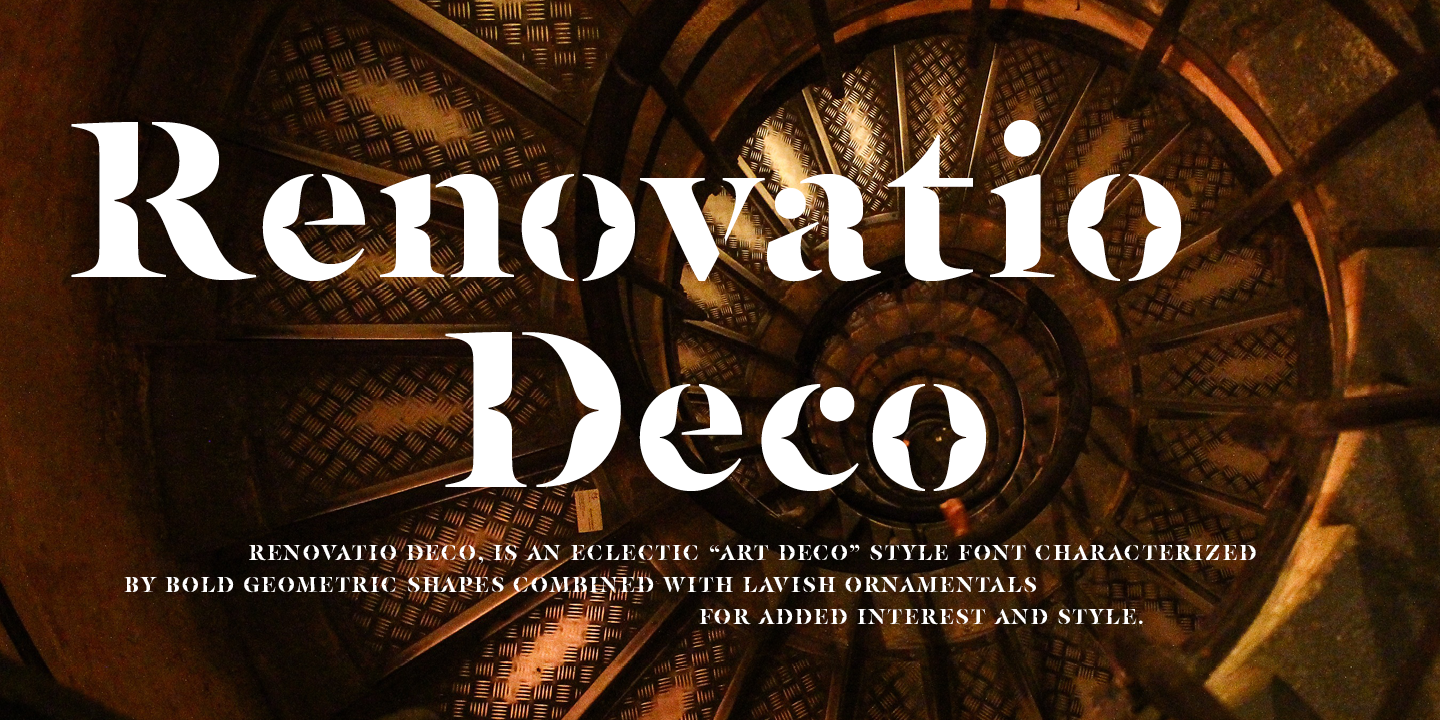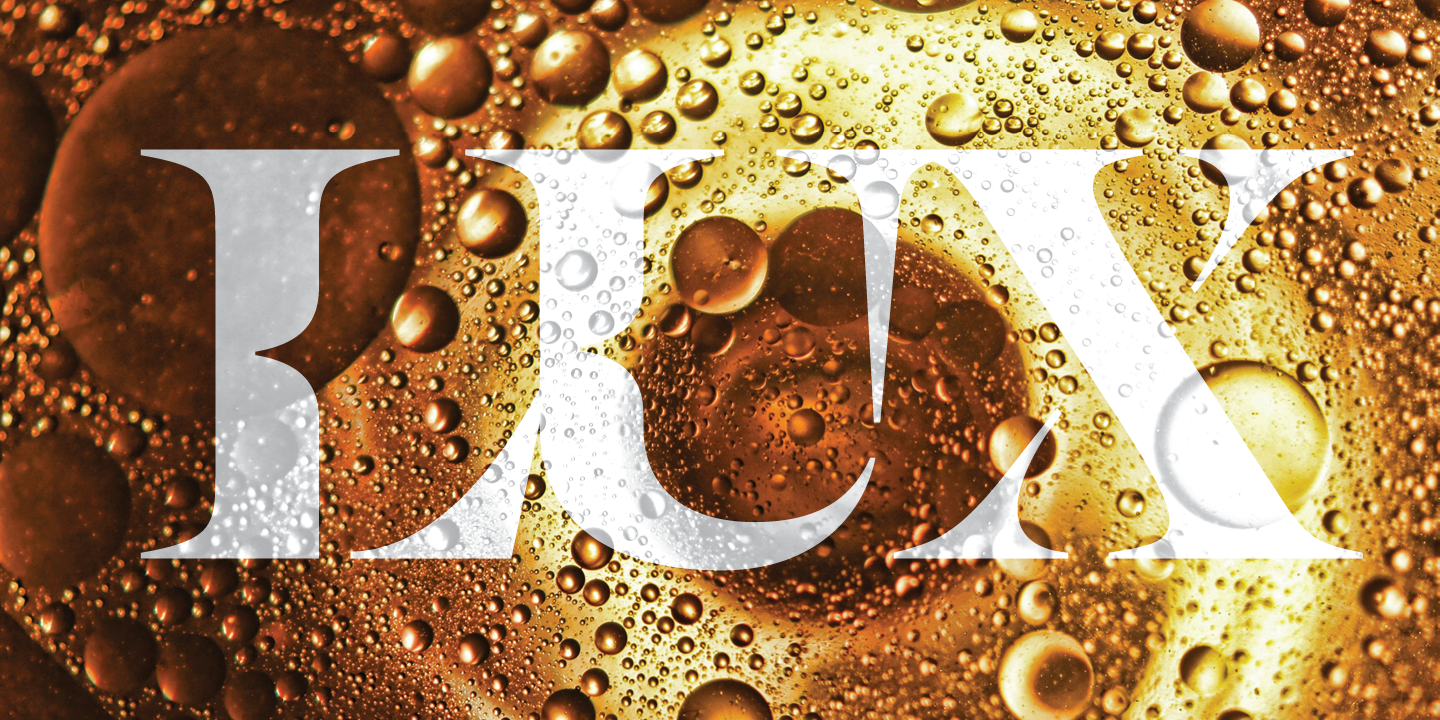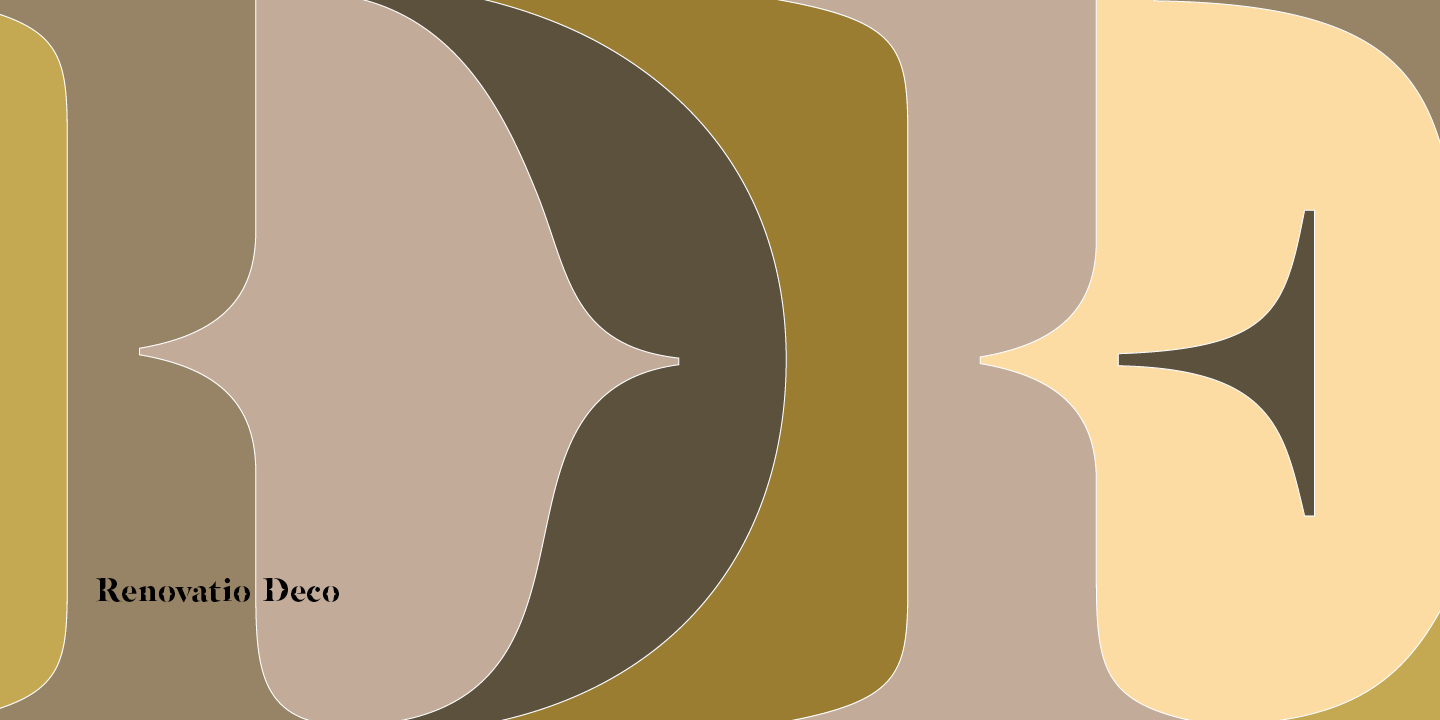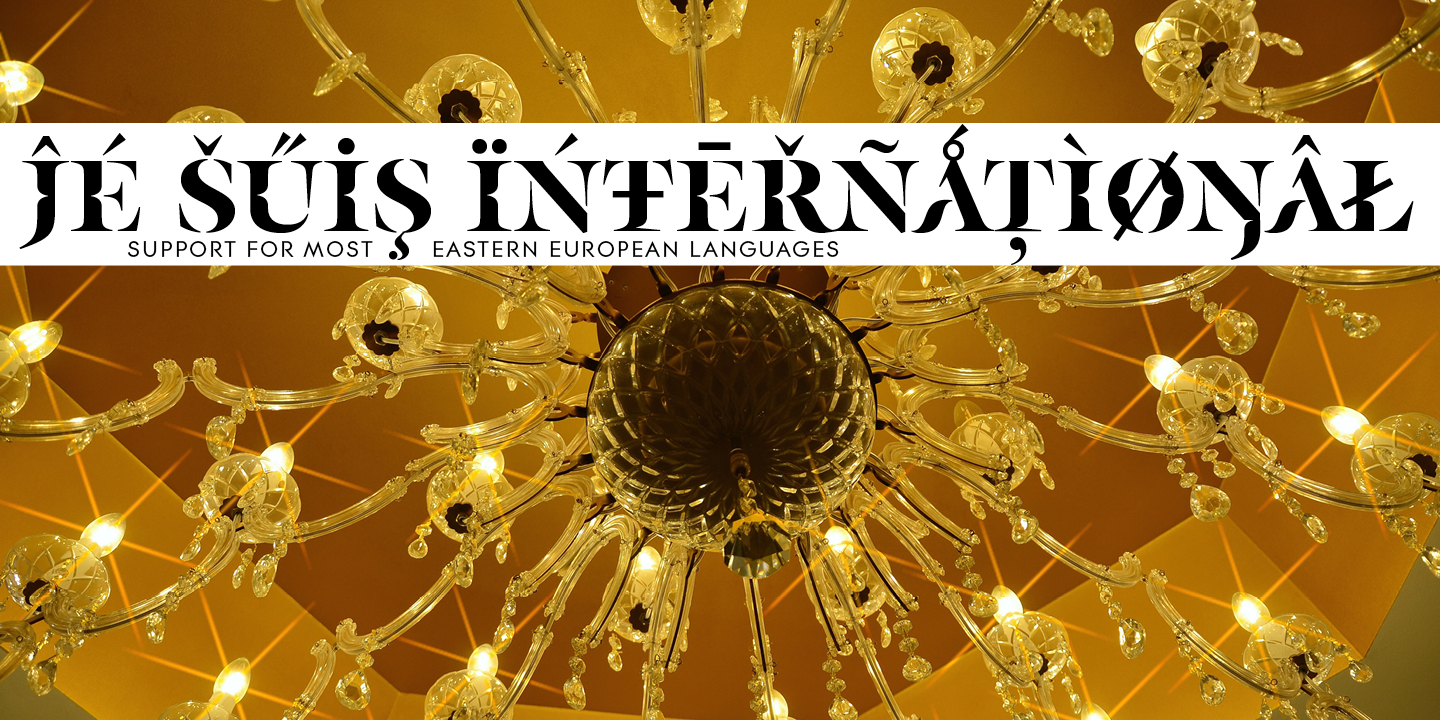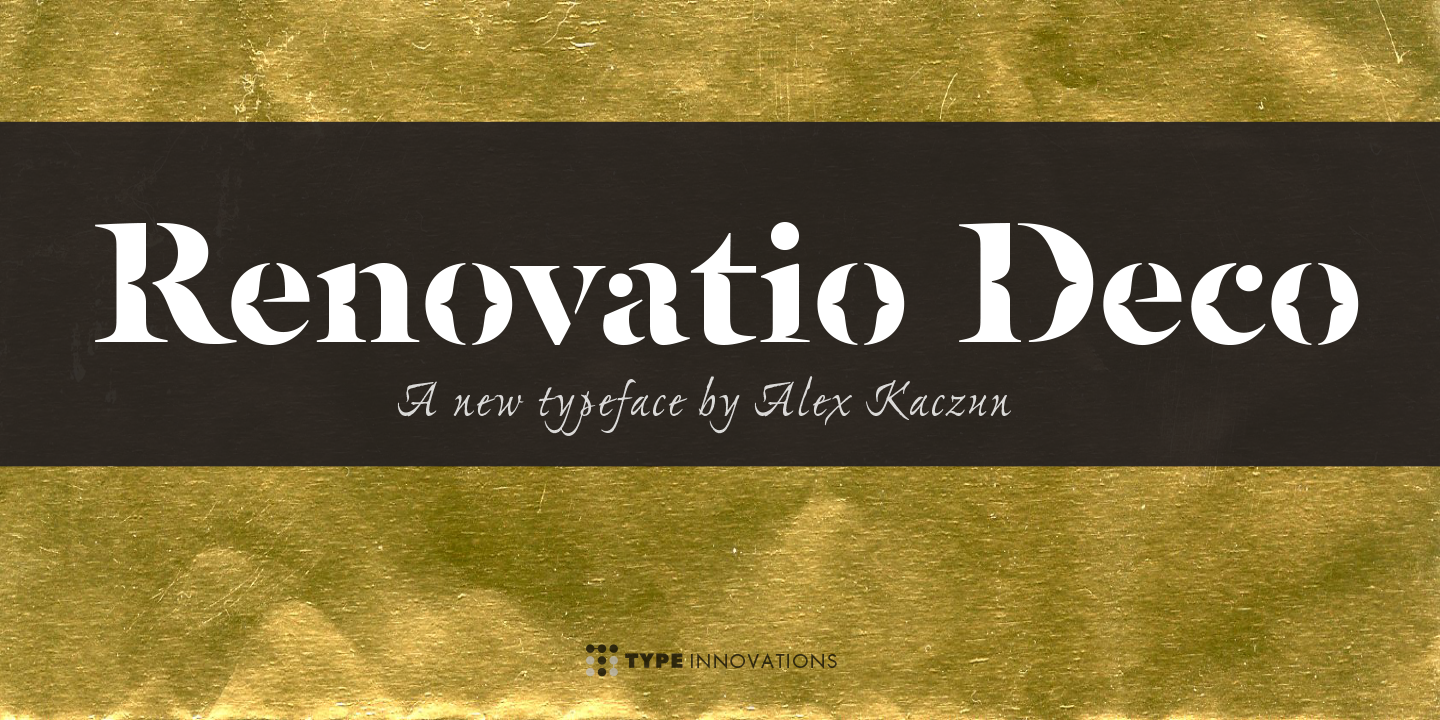
Renovatio Deco
Renovatio is a registered trademark of Type Innovations Inc. This extensive family of fonts will be based on other typefaces currently available in their library. Renovatio means “renewal”—renewing with interest added to principle. Renovatio Deco, is an eclectic “art deco” style based on Alex Kaczun’s previous font called Nadia—it is characterized by bold geometric shapes combined with lavish ornamentals for added interest and style.
Renovatio Deco is an assertively modern style and represents luxury, glamour, exuberance, and faith in social and technological progress. It is primarily a display font, but it can also be used in a large range of text sizes, as well as, for corporate identity, logo and branding applications.
Alex is currently developing a range of alternate variations and styles that will be based on other typefaces within his extensive font library that will be part the Renovatio family. These OpenType fonts will all contain an expanded character set of glyphs for most Eastern European languages. Stay tuned!
The large Pro font character set supports most Central European and many Eastern European languages.